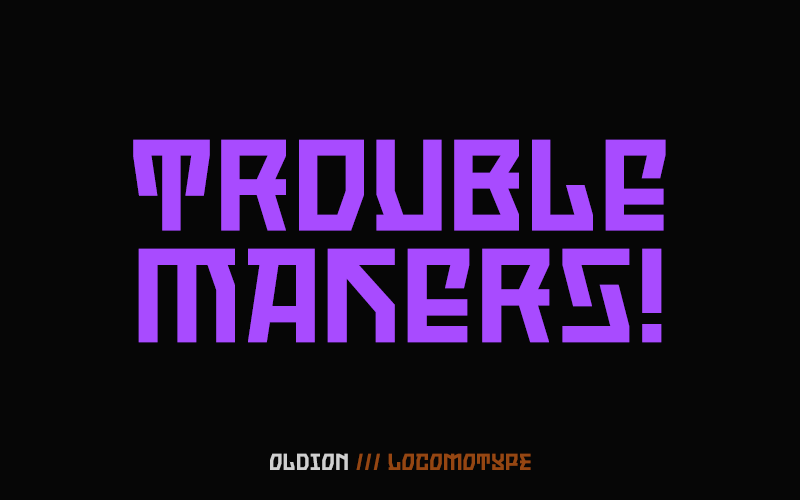
Font name: | Oldion |
Author: | Locomotype |
Note by Locomotype | |
Oldion is a captivating display font, draws inspiration from the boundless realms of science fiction and modern technology. With its distinctive and futuristic accents adorning each letter, Oldion breathes life and dynamism into your projects. Available in both regular and rounded styles, infuses a touch of innovation and intrigue into your designs. Oldion is your ideal choice for a wide range of creative applications, from commanding movie posters and attention-grabbing headlines to captivating packaging and distinctive logotypes. Oldion is free for personal use. For commercial use please check here: https://s.id/OldionFont |